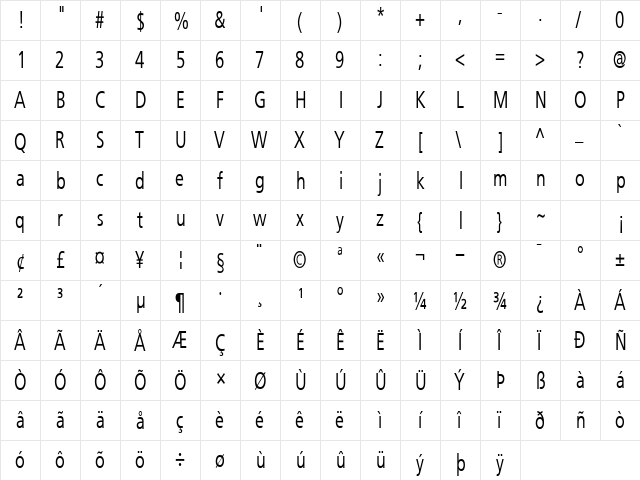
WeissachCondensed Regular
Design Context for WeissachCondensed Typeface
WeissachCondensed takes a measured approach to typography — its balanced proportions and neutral character make it a reliable workhorse for both digital and print work. The condensed width makes it efficient for tight spaces without sacrificing legibility.